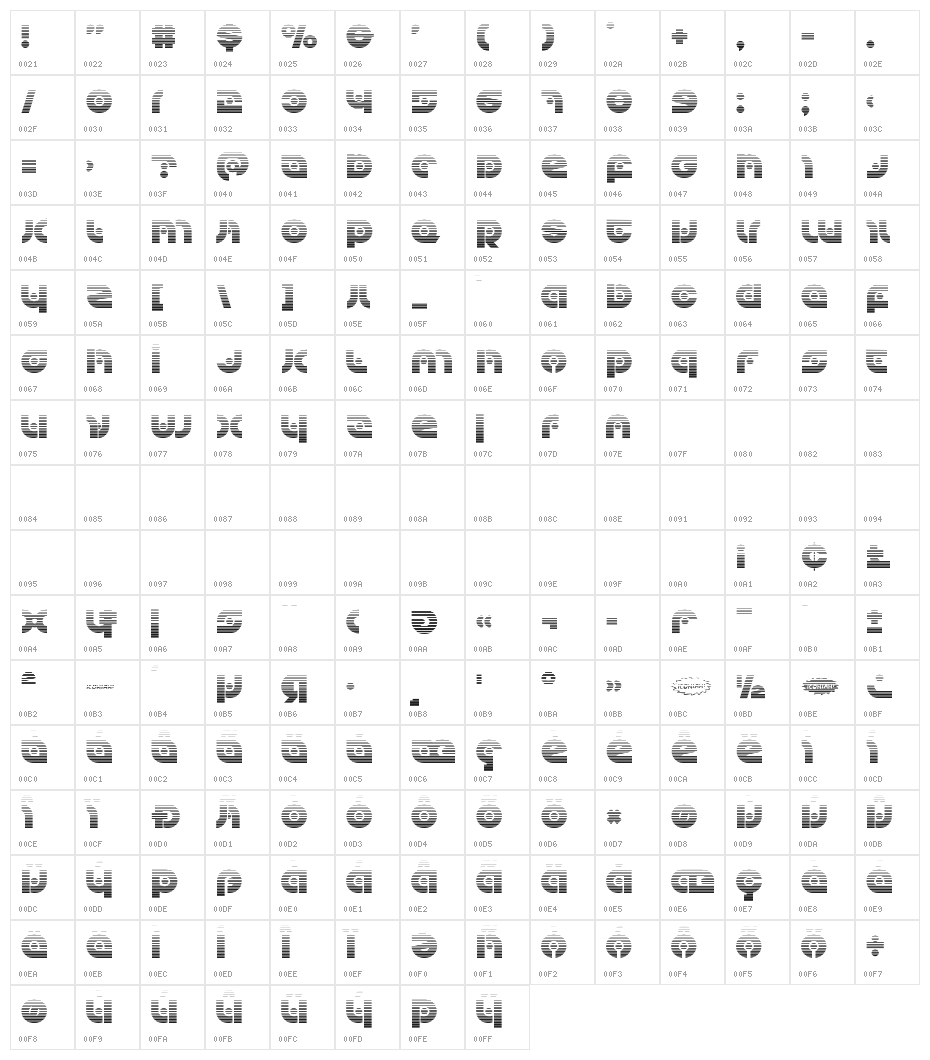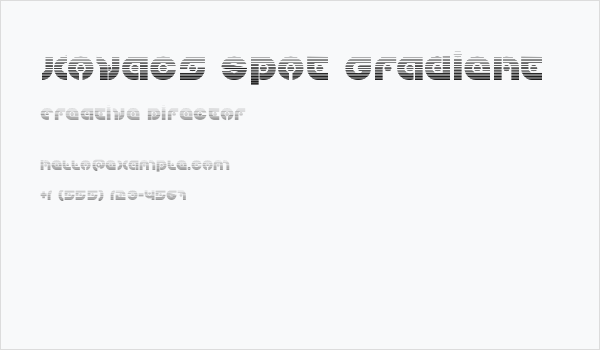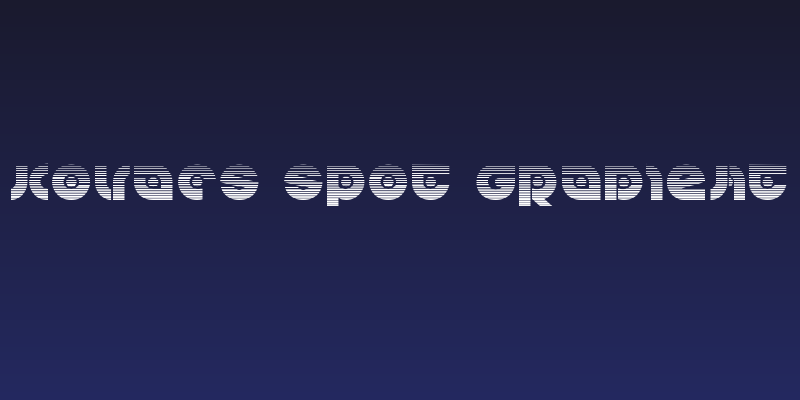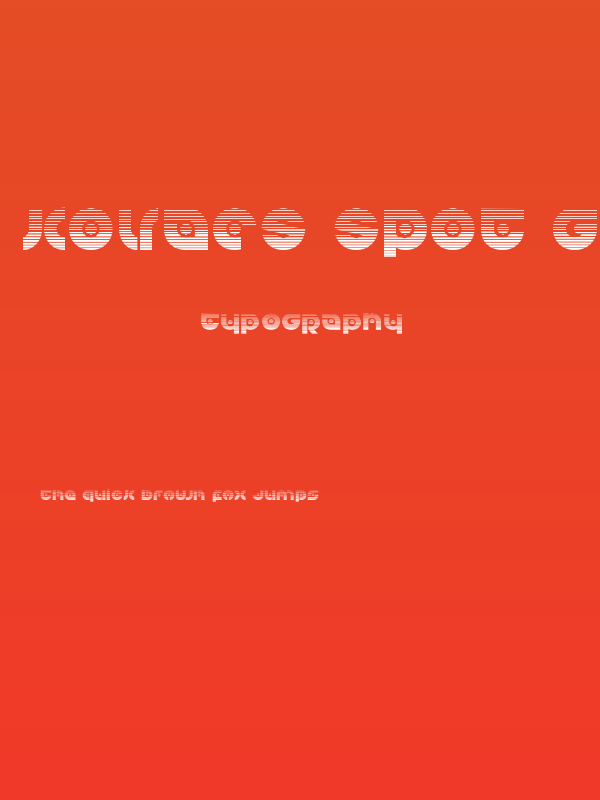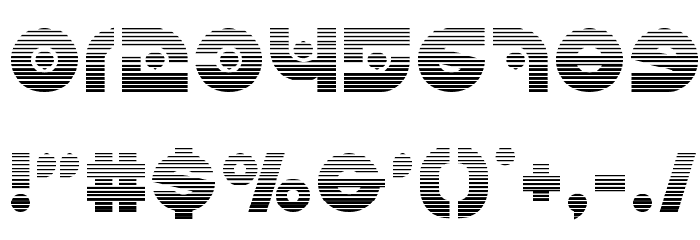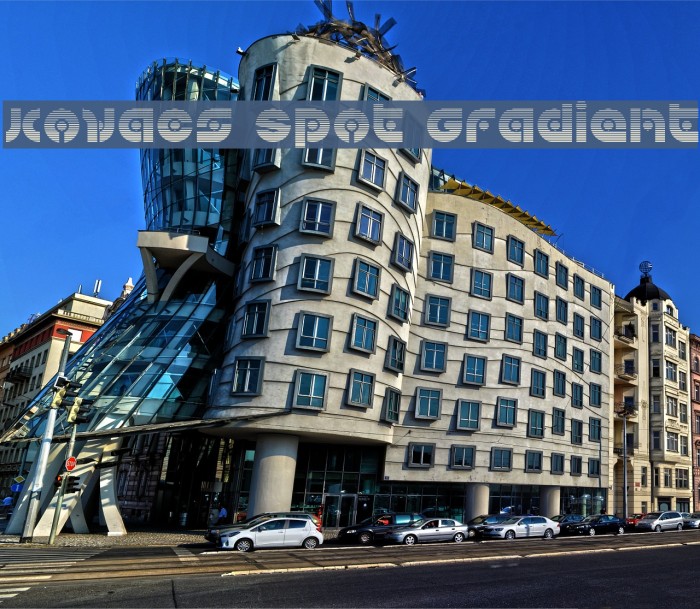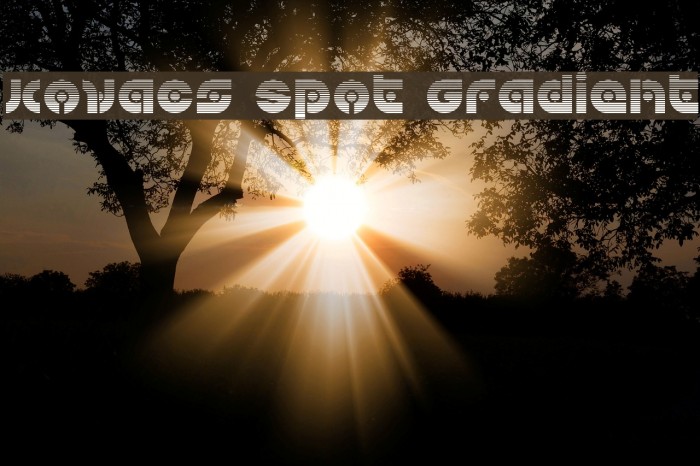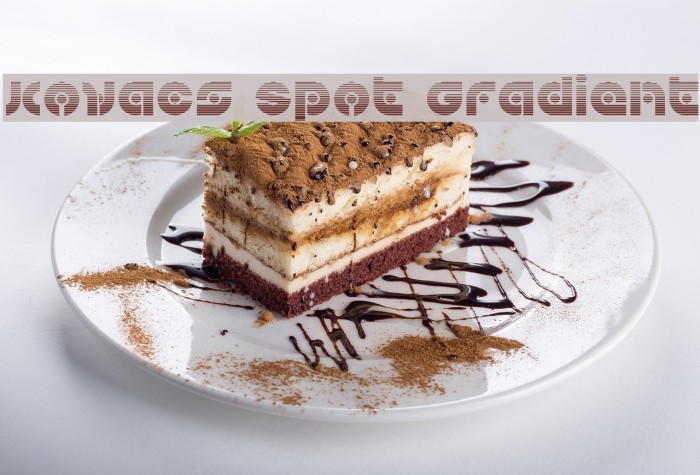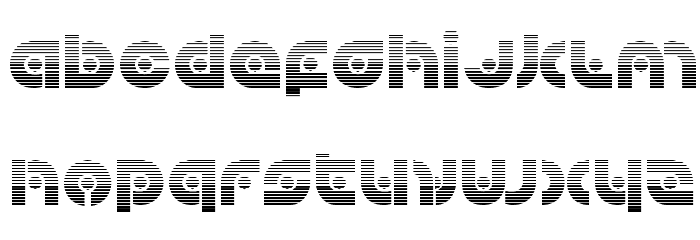
Kovacs Spot Gradient Font
Kovacs Spot Gradient Description
This font features a unique design with a striped pattern that creates a gradient effect across each character. The letters are bold and rounded, with a futuristic and digital aesthetic. The horizontal lines vary in thickness, adding a dynamic visual texture. This style is consistent across uppercase, lowercase, numbers, and special characters, making it a cohesive and visually striking typeface.
KOVACS-SPOT-GRADIENT UPPERCASE
KOVACS-SPOT-GRADIENT LOWERCASE
KOVACS-SPOT-GRADIENT OTHER CHARS